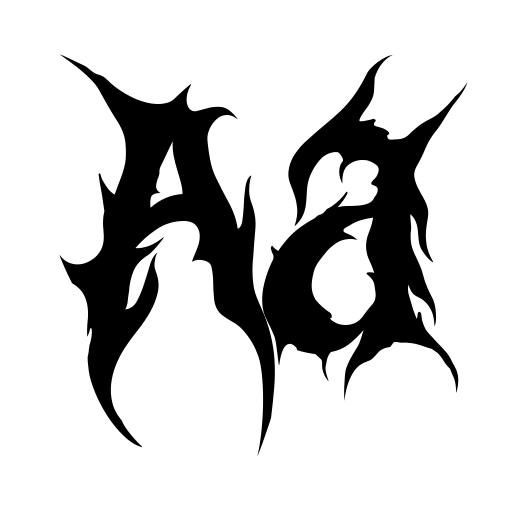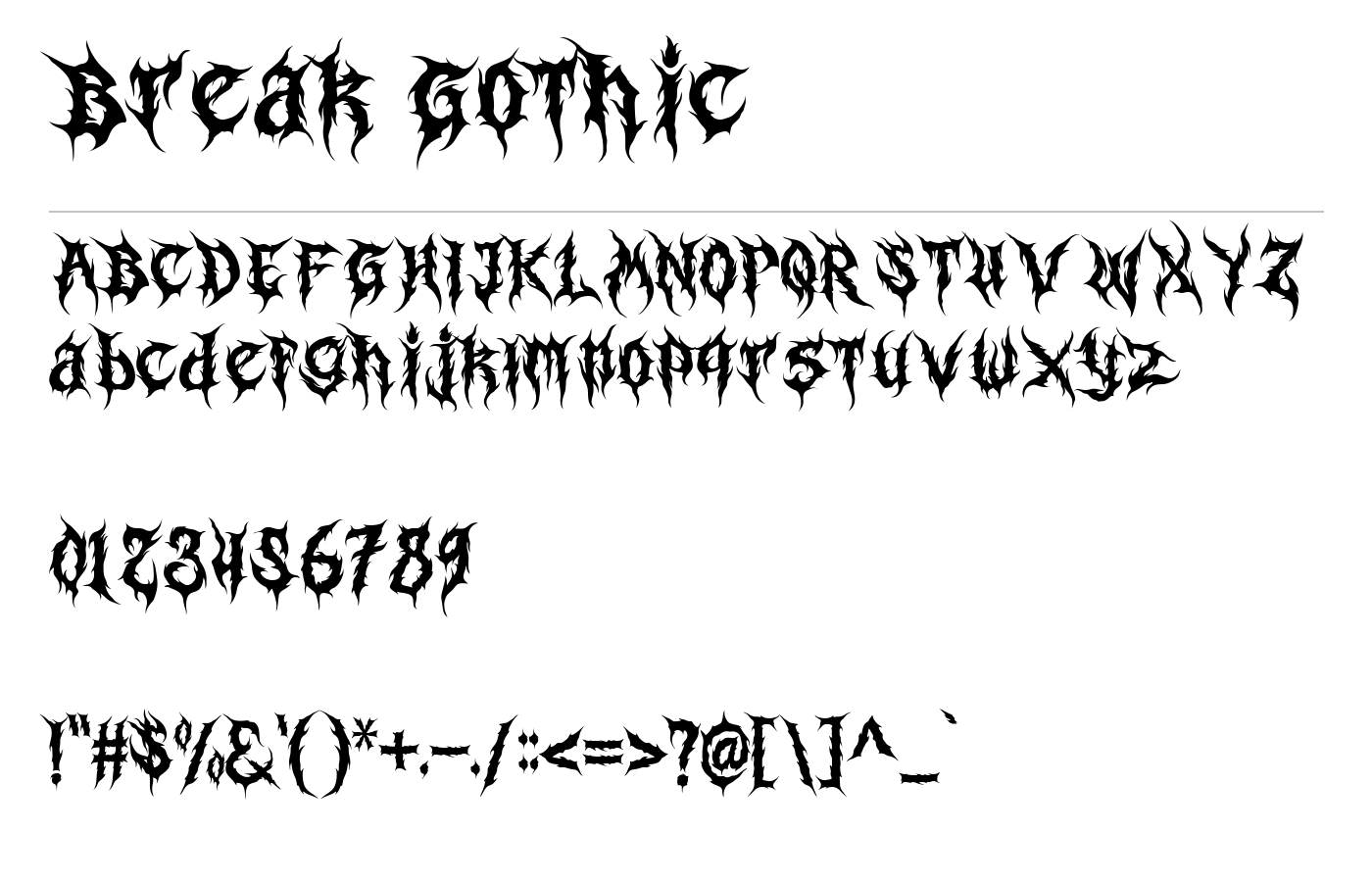
Break Gothic is a bold and dramatic display font with a sharp, jagged style that evokes a dark, edgy, and gothic atmosphere. Its spiky, irregular letterforms create a sense of intensity and rebellion, making it ideal for designs that seek a strong, unconventional, and eye-catching presence, especially in music, horror themes, or alternative culture branding.
Break Gothic Font
About Break Gothic Font
| Font family | Break Gothic Font |
| Designer | Rifqi triana |